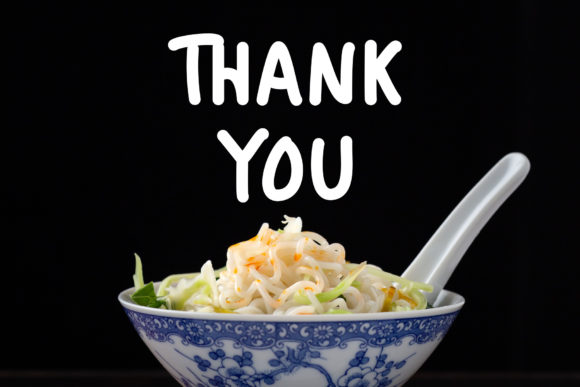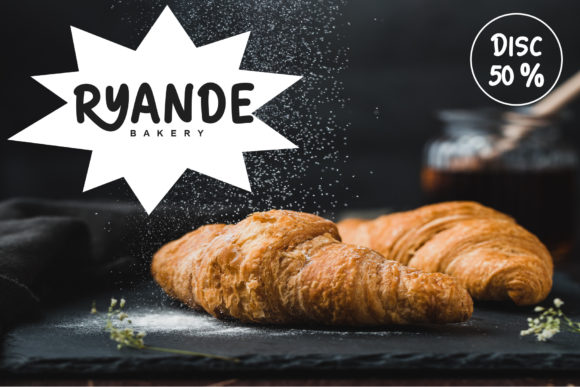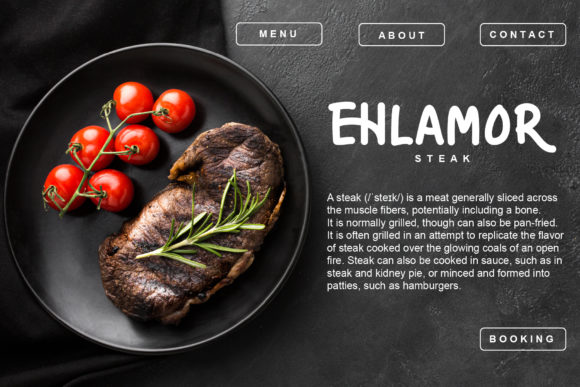
About Rubber Font
Rubber is a neat brushed handwritten font. it has a friendly, warm and casual touch and it will most certainly elevate each of your designs. Add it confidently and you won’t be disappointed.